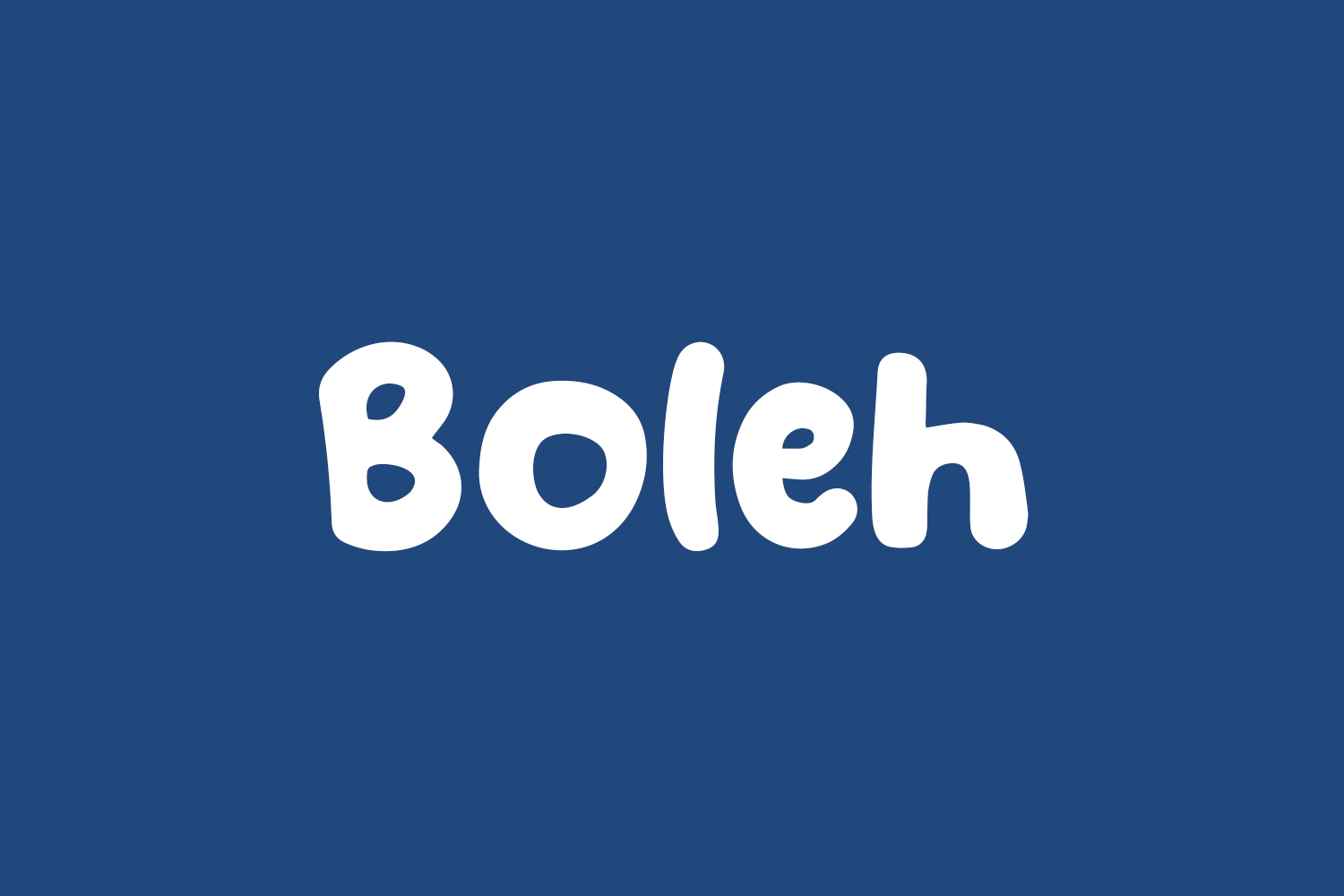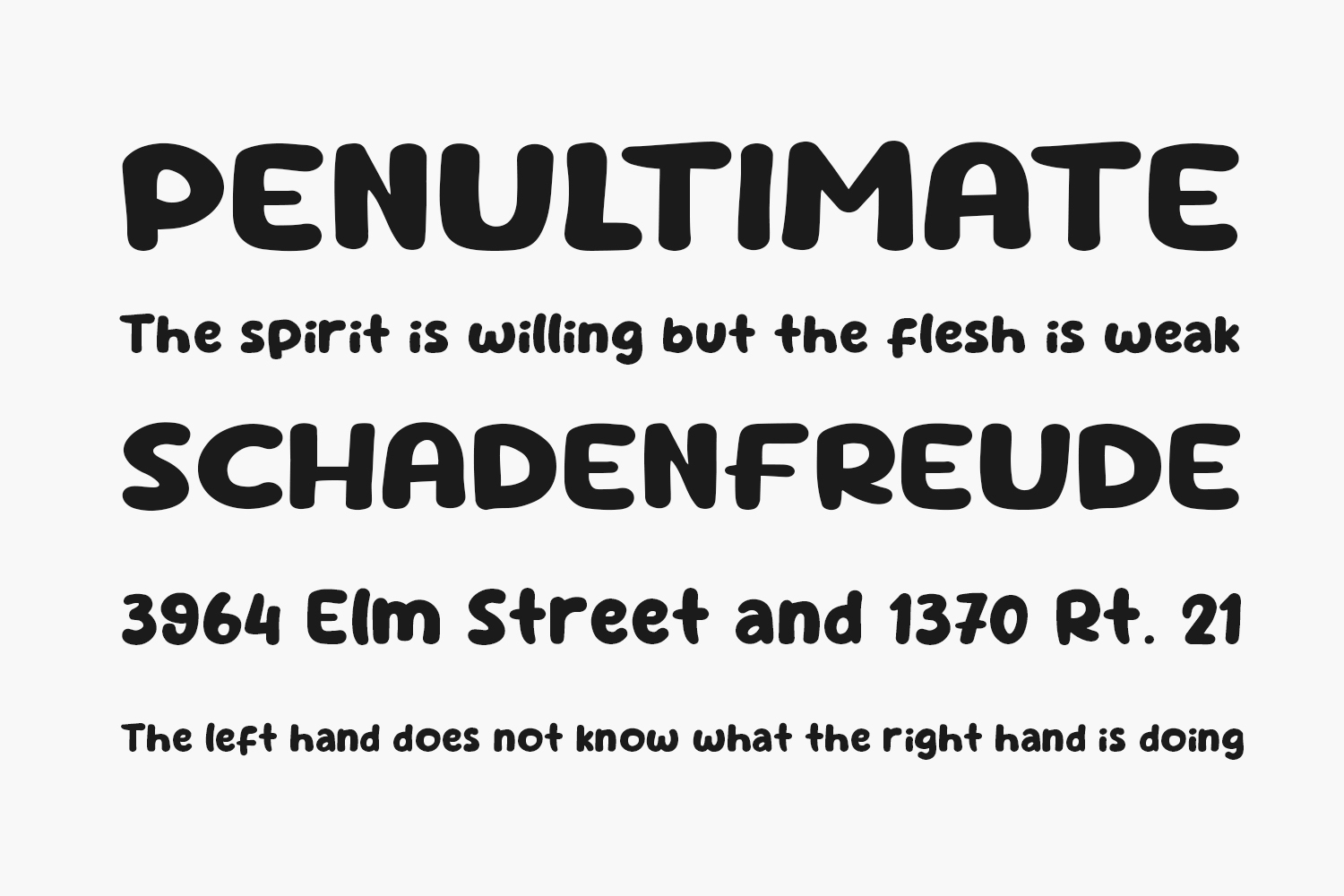
Boleh Free Font is a modern and fancy display font perfect for posters, logos, magazines, book covers, banners, and many more! Get this quirky display font, and use it to create lovely designs. Boleh Free Font was designed by Khurasan and is free for personal or commercial use.